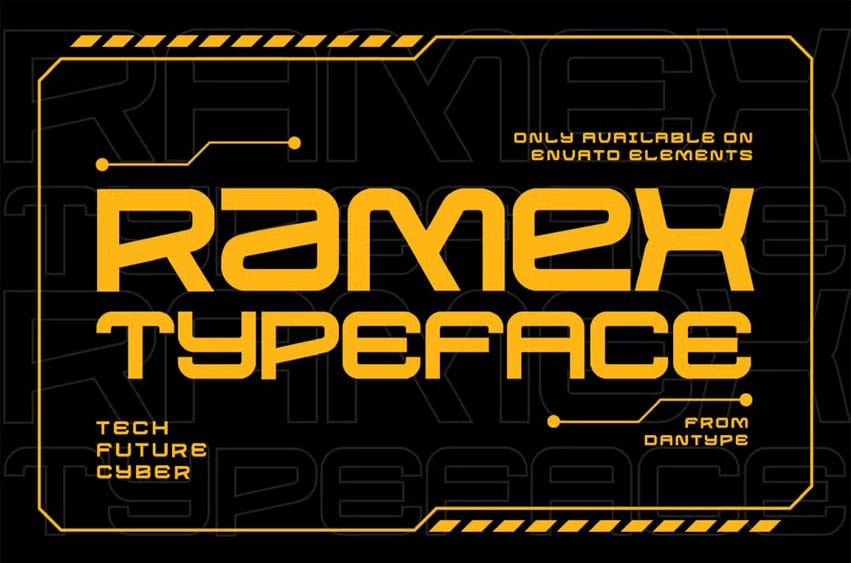
Ramex Font is a futuristic tech-inspired display font built for modern design systems and sci-fi branding. Its sharp geometry, modular forms, and digital-inspired details make it ideal for technology logos, esports visuals, and modern interface design.
With strong readability and cutting-edge personality, Ramex gives your project a bold mechanical voice.
- All Caps, Numbers & Punctuation
- Alternate Glyph